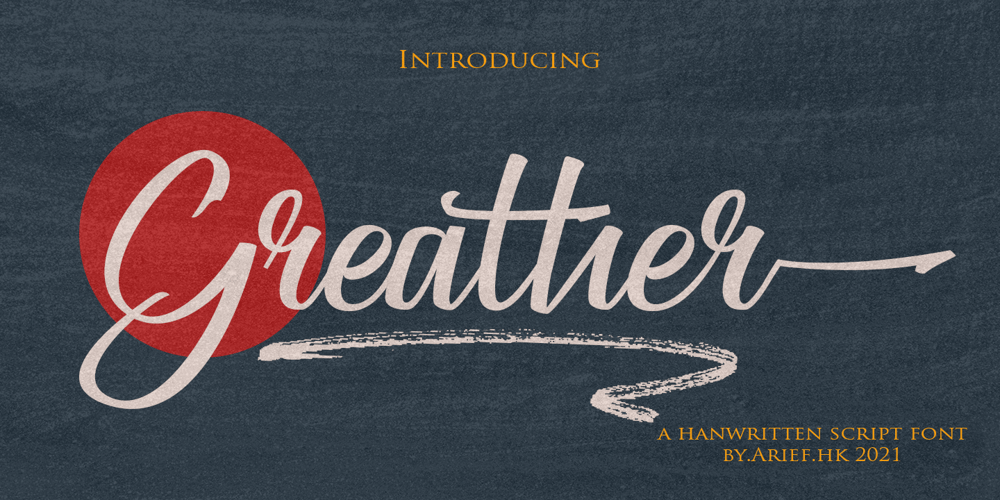
Greather Font Family was designed by Ariefr Munandar and published by dotHK Studio. Greather contains 1 styles and family package options. Greather is a casual script and clean brush script with a bouncing baseline. Include OpenType alternates and common ligatures. Try the alternates and ligatures to give your designs looks good, fresh, casual, stylish, and modern.Greather is equipped with 357 glyphs with a variety of alternate options and ligatures to suit your choice. 40 glyph ligature style. by having many of these glyphs will be able to select the lettersaccording to your likes, many variations and options for each letter,so you can customize on your design choices. To use a variety of flying machines, you need a program that supportsOpenType features such as Adobe Photoshop Cs / Adobe Photoshop CC,Adobe Illustrator CS / Adobe Illustrator CC, Adobe Indesign and CorelDraw and many more programs that support OpenType. If you do not have a program that supports OpenType, you can accessall the alternate glyphs using Font Book (Mac) or Character Map(Windows)